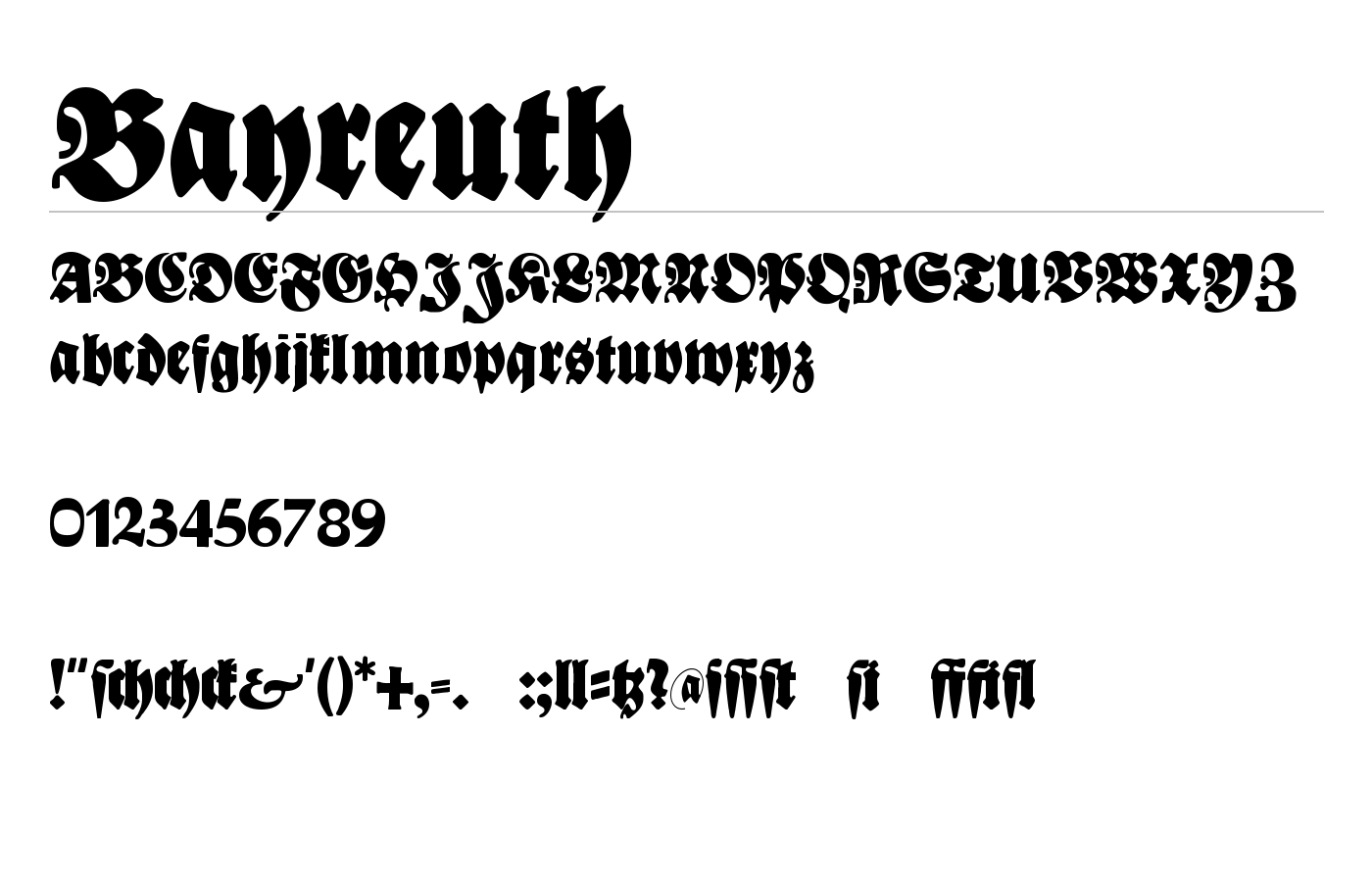
Bayreuth is a bold blackletter font characterized by its strong, ornate strokes and high contrast between thick and thin lines. It features traditional gothic style letterforms with sharp, angled edges and decorative flourishes, making it ideal for vintage-inspired designs, branding, and headlines that require a dramatic, historic, or medieval feel. This font works best where a distinctive, old-world personality is desired, such as in logos, posters, or editorial titles that want to evoke strength and tradition.
Bayreuth Font
About Bayreuth Font